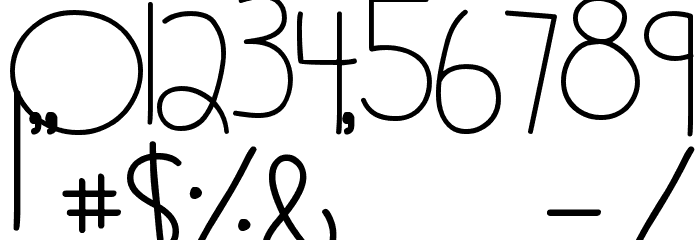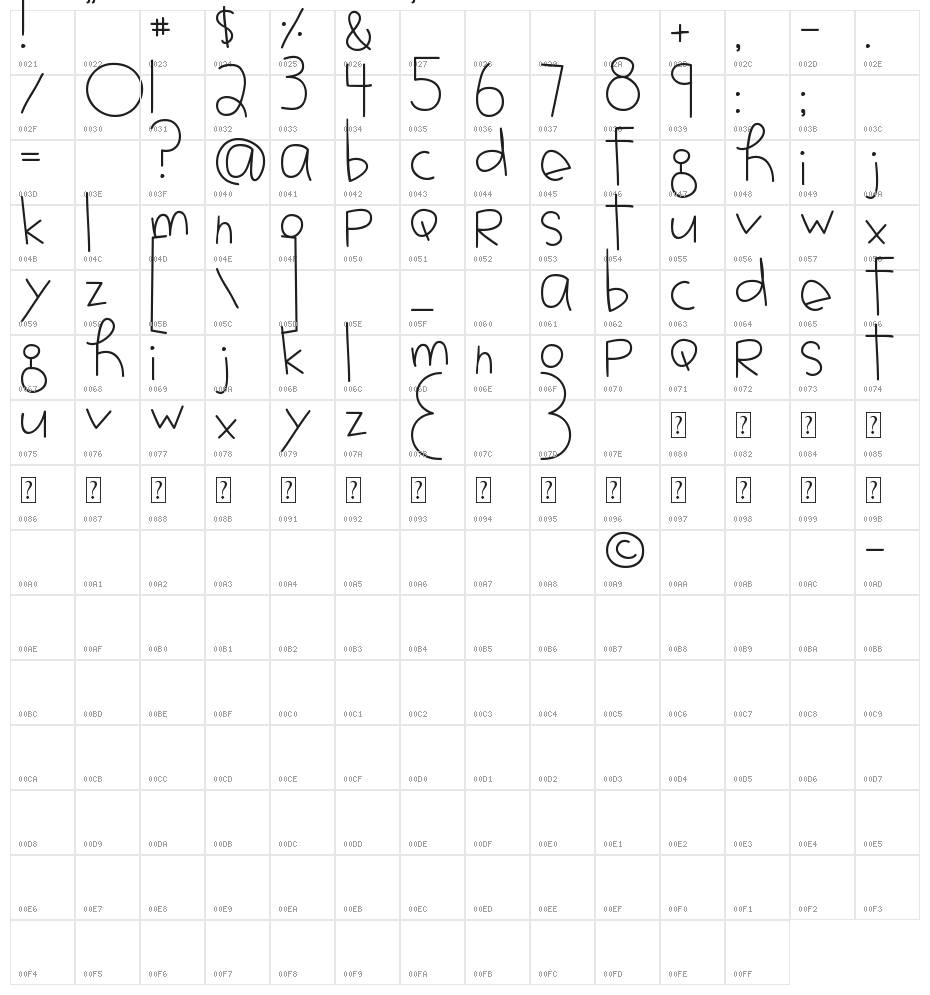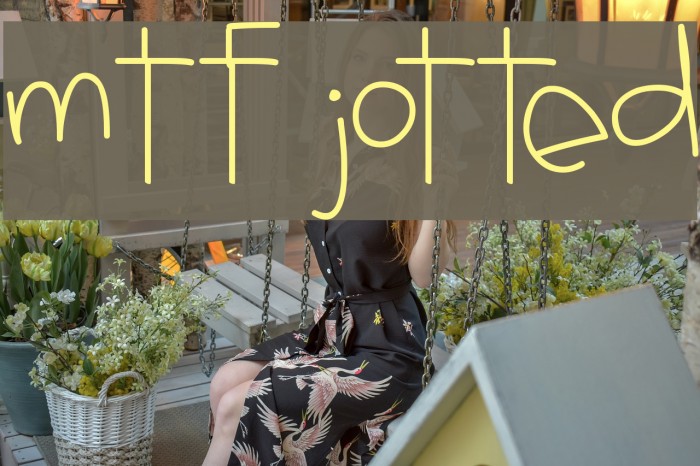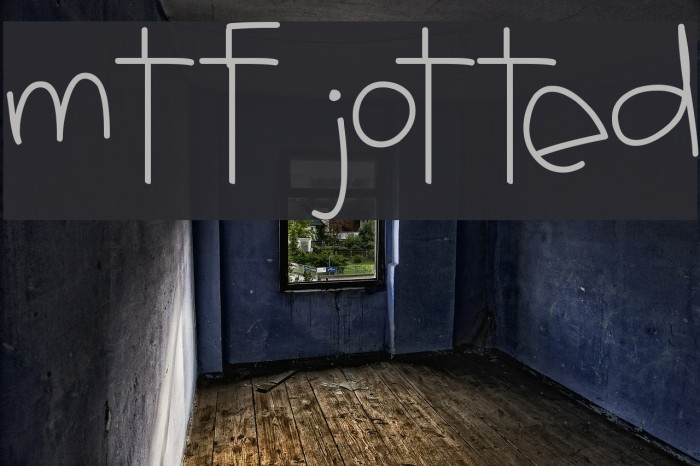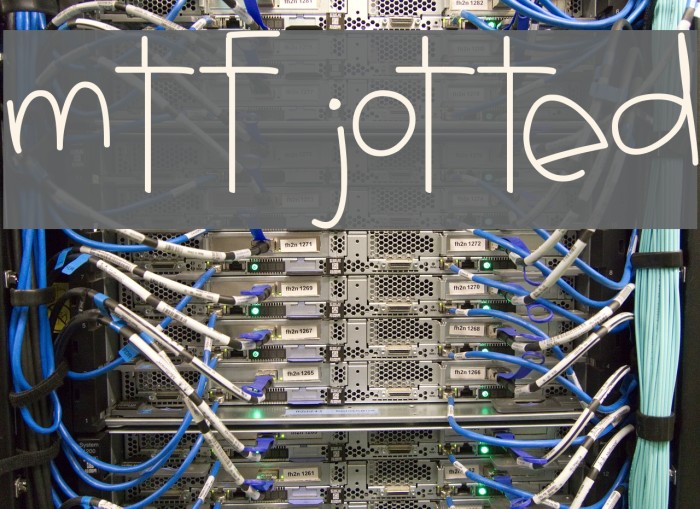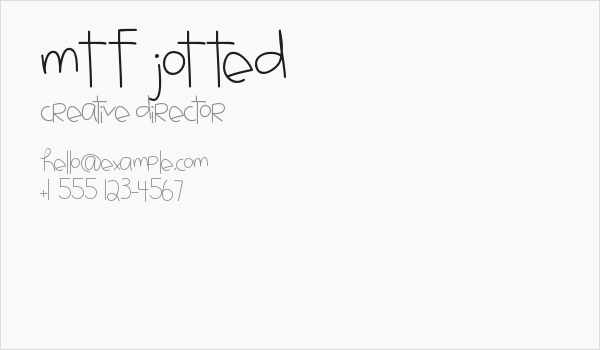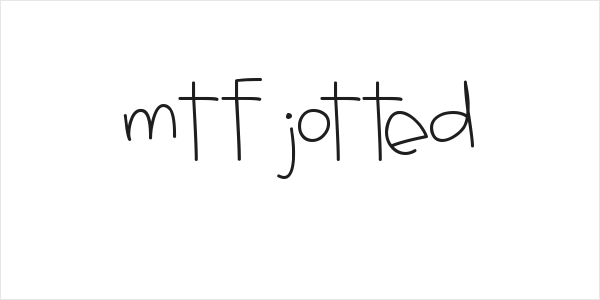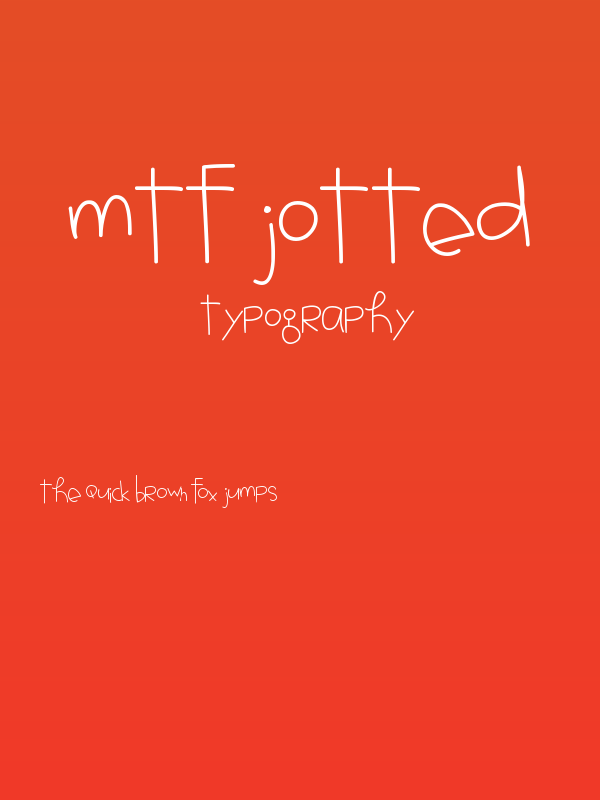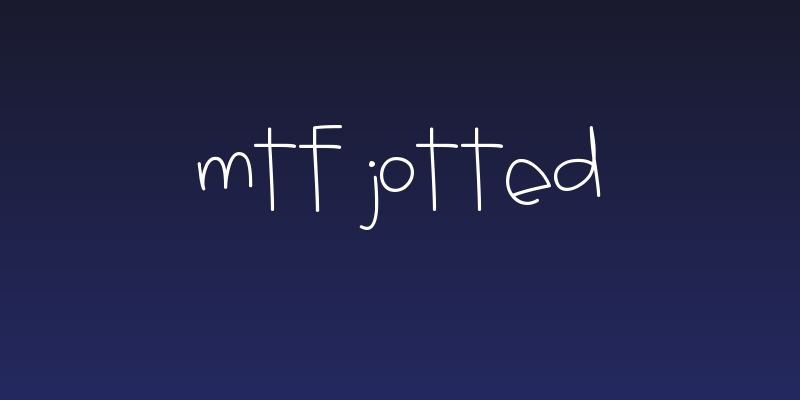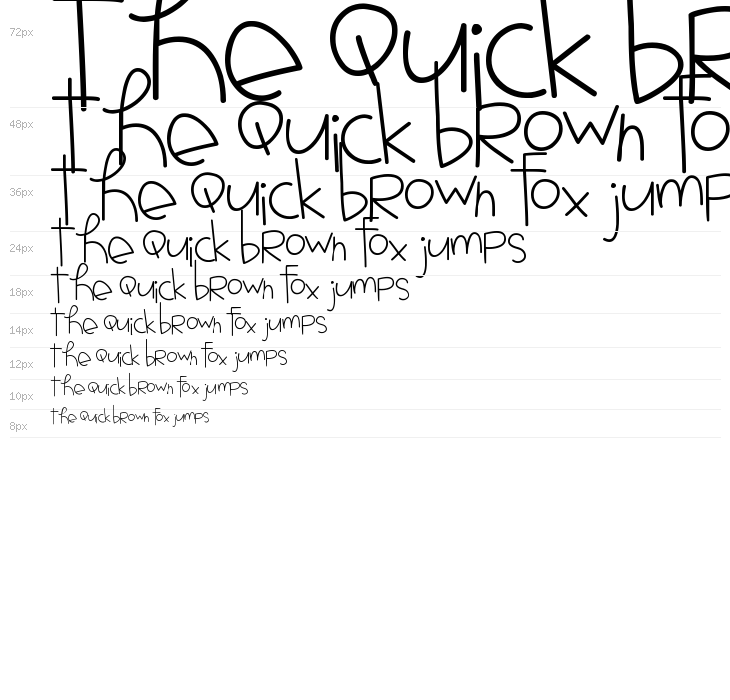
MTF Jotted Font
MTF Jotted Description
This font features a playful and whimsical handwritten style, characterized by its tall, narrow letters and irregular strokes. The characters have a casual, informal appearance, with unique, quirky elements such as loops and varying line thicknesses. The font maintains a consistent baseline, yet each letter has its own distinct personality. The overall look is light-hearted and approachable, making it suitable for creative and fun projects. The numerals and special characters follow the same playful design, ensuring a cohesive look across all text elements.
| Proposed Projects | Ideal for children's books, greeting cards, playful branding, and creative projects. |